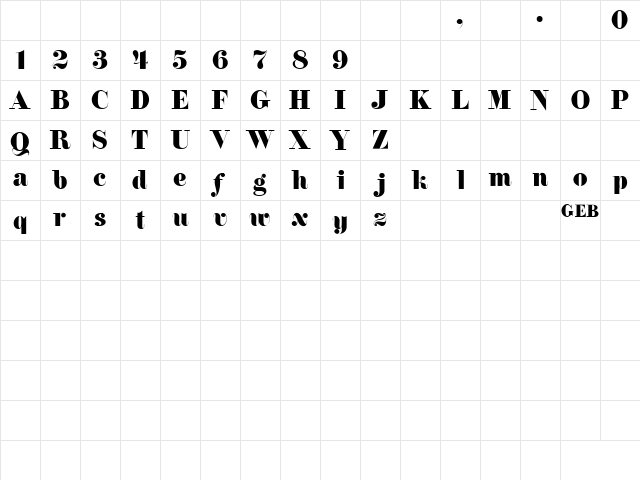
TQF_Florentine Regular
Design Context for TQF_Florentine
TQF_Florentine is a composed and adaptable typeface that performs quietly and consistently across a wide range of design contexts.